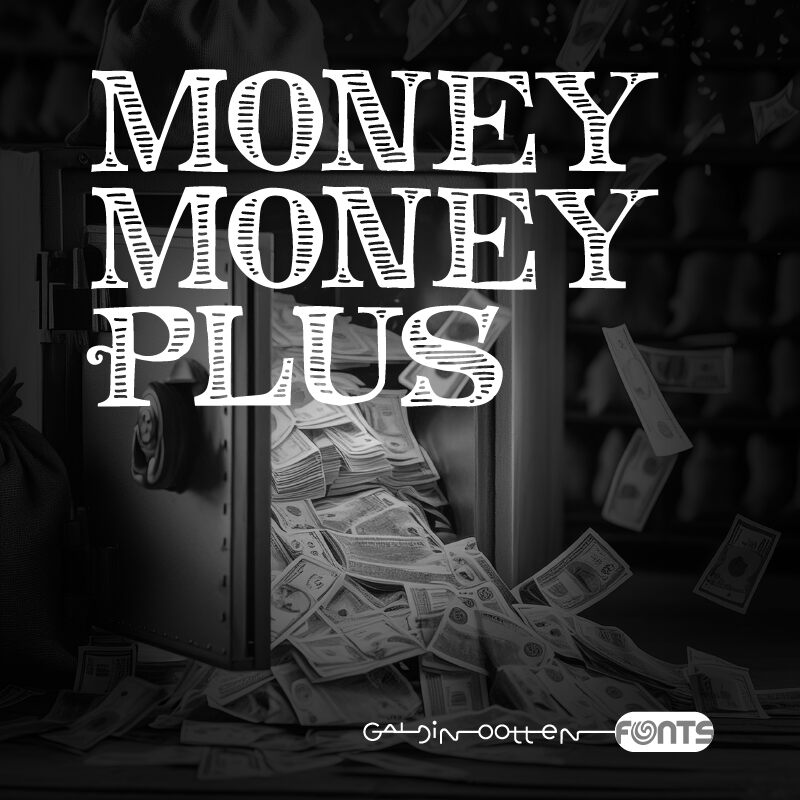
Money Money Plus
Money Money Plus, from the esteemed Galdino Otten Fonts' Money Money family, stands out as a captivating display typeface. Its name hints at opulence and grandeur, which is perfectly embodied in its playful yet sophisticated design elements. The font's most remarkable feature is its chic stripe pattern within each stroke, imparting an air of distinct sophistication and flair.
Ideal for high-impact headers and eye-catching logos, Money Money Plus shines in projects requiring a bold visual statement. Its unique aesthetic makes it particularly suitable for luxury branding, trendy fashion editorials, and striking event posters. The font’s imaginative style ensures that it not only grabs attention but also leaves a lasting impression on any audience.
Incorporate the dynamic elegance of Money Money Plus to elevate your designs with a touch of whimsical refinement.
Ideal for high-impact headers and eye-catching logos, Money Money Plus shines in projects requiring a bold visual statement. Its unique aesthetic makes it particularly suitable for luxury branding, trendy fashion editorials, and striking event posters. The font’s imaginative style ensures that it not only grabs attention but also leaves a lasting impression on any audience.
Incorporate the dynamic elegance of Money Money Plus to elevate your designs with a touch of whimsical refinement.